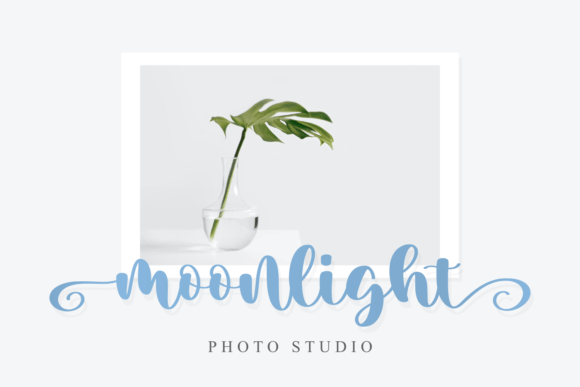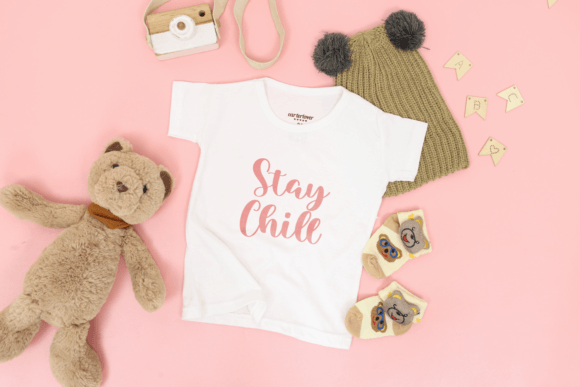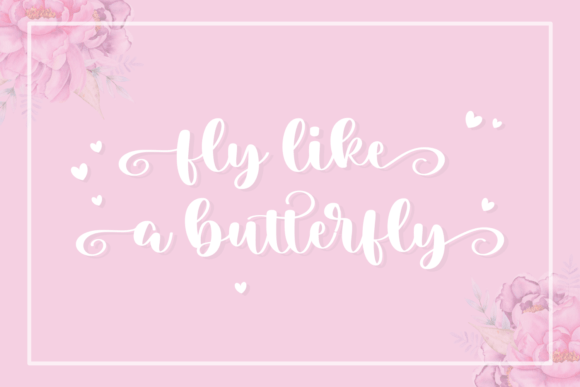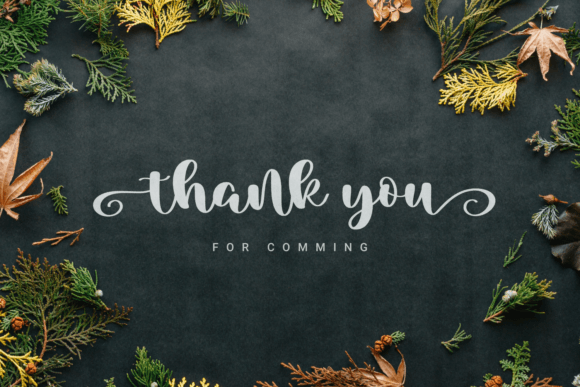
Introduction to Brettaney Font
Brettaney is a sweet handwritten font.
Add it to your logos, labels, branding, invitations, websites, quotes, and more, and it will boost your designs and make them a true standout .
Key Features of Brettaney Font